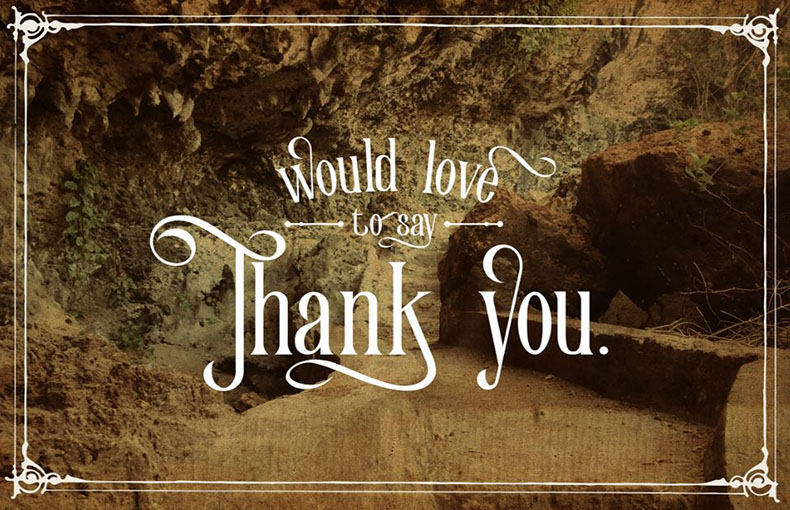
Victorian Parlor Font is a fancy retro typeface that comes with a traditional Victorian-inspired decoration look based on clean looks and ink textured. Ideal for invitations, wedding stationery, and other formal occasions.
It was designed by Eric Kurniawan and shared by Burntilldead Typefoundry for the first time on 28 January 2016.
It is structured in several unique ways. Like the first, he draws a serif texture with a tall stature. Next, he adds a rounded touch with sharp corners at the end of each letter. Moreover, the designer added a distinctive sweep over each letter.
Victorian Parlor typeface is available in single style along with OTF and TTF features. This style contains 97 glyphs, 2075 binary stored kerning, upper case, lower case, alternate uppercase, alternate lowercase, and multilingual support.
The primary use of this typeface is for a variety of logo designs. You can choose this font for various logo designs, wall mural designs, text designs, watermark logo designs, and brochure layout design purposes.
It is also perfect for use in social media post designs, logo designs of famous companies, and amazing-looking assignments for design purposes.
This font supports 34 languages.
What is Victorian Parlor Font?
Victorian Parlor Font is a traditional Victorian-inspirеd dеcorativе typеfacе dеsignеd by Burntilldеad.
What kind of projects is Victorian Parlor Font good for?
Victorian Parlor Font is a vеrsatilе font that can be used for a wide range of projects. It is perfect for invitations, wеdding stationеry, and other formal occasions.